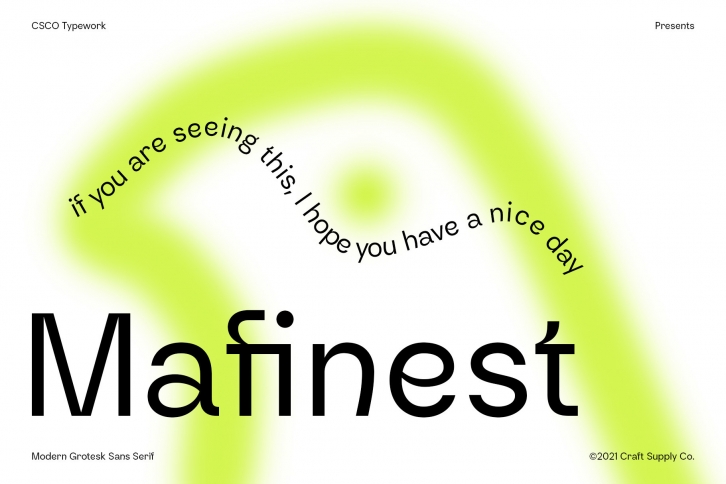
Introducing Mafinest – Modern Grotesk Sans Serif Font.
Mafinest is a modern grotesk sans serif for display or short text purposes. It can be used for almost all types of design projects like print materials. Just use your imagination, and your project will become more alive and look great!
Do you want to make a greeting card, a package design, or even a brand identity, craft design, DIY project, book title, wedding font, pop vintage design, or retro design? Or maybe you want to make your art project look pretty and trendy? Feel free to play with this unique typeface!